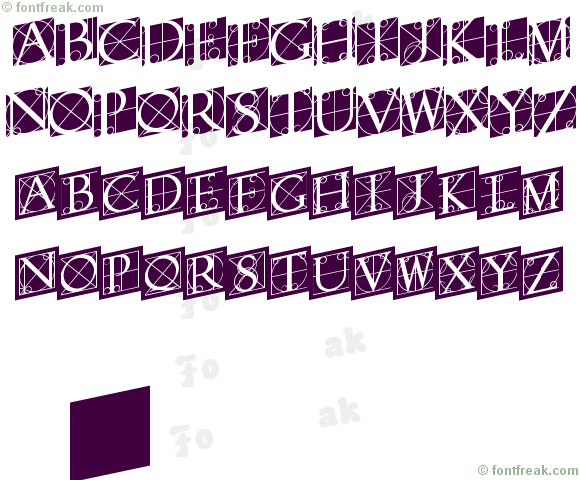
RodgauerTwo
RodgauerTwo, designed by Manfred Klein, is a distinctive display font that embodies a unique blend of artistic flair and modern aesthetics. This font falls into the decorative category, making it an excellent choice for projects that require eye-catching typography. Its visual characteristics include a medium stroke weight with playful curves and geometric forms, creating a harmonious balance between solidity and elegance. The spacing is thoughtfully designed to enhance readability while maintaining a creative edge, making it suitable for various applications.
The RodgauerTwo font shines in specific use cases, such as wedding invitations where a touch of creativity is desired, or movie posters that demand bold and memorable typography. It can also enhance restaurant menus, providing a stylish way to present food offerings, or be used in branding materials for creative businesses that want to stand out. Additionally, this font is perfect for promotional graphics that require a striking visual impact, appealing to audiences seeking something unique.
What sets RodgauerTwo apart is its ability to combine artistic expression with functionality. Its captivating design elements invite attention while maintaining clarity, making it a valuable asset for various design needs. Whether you're crafting a modern invitation or an engaging poster, the RodgauerTwo font free download provides an opportunity to elevate your work with a distinctive style that resonates with audiences.